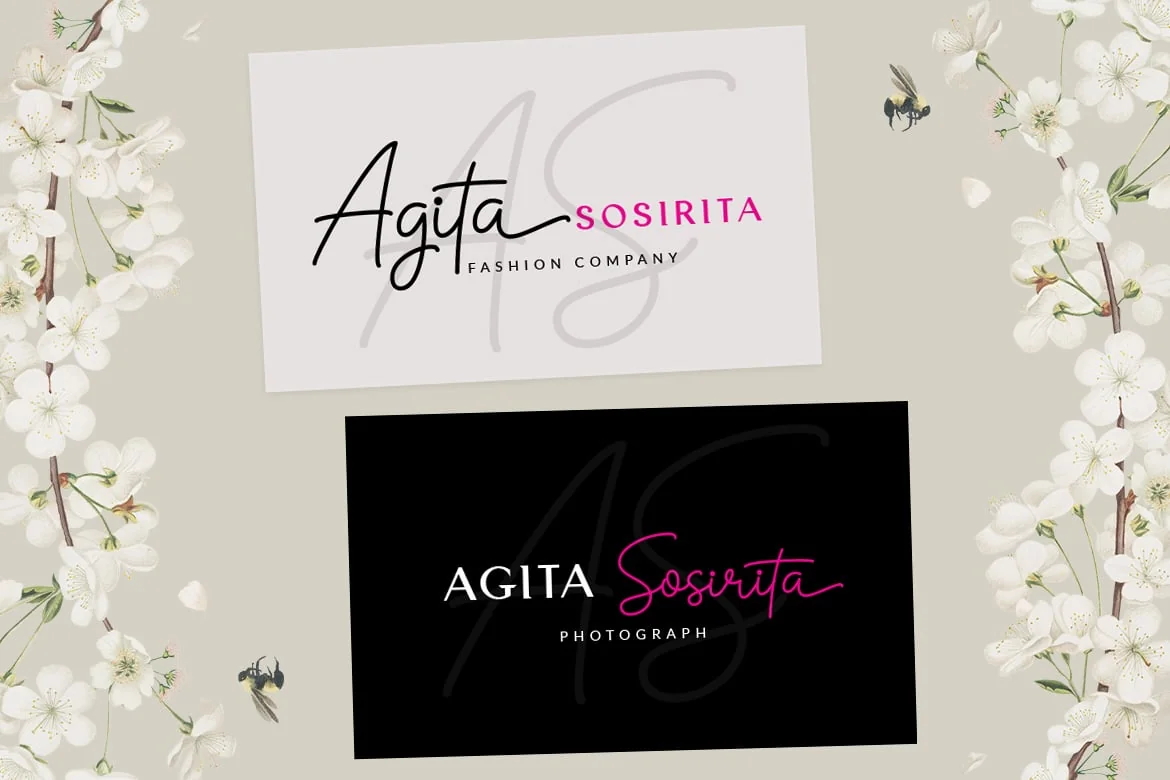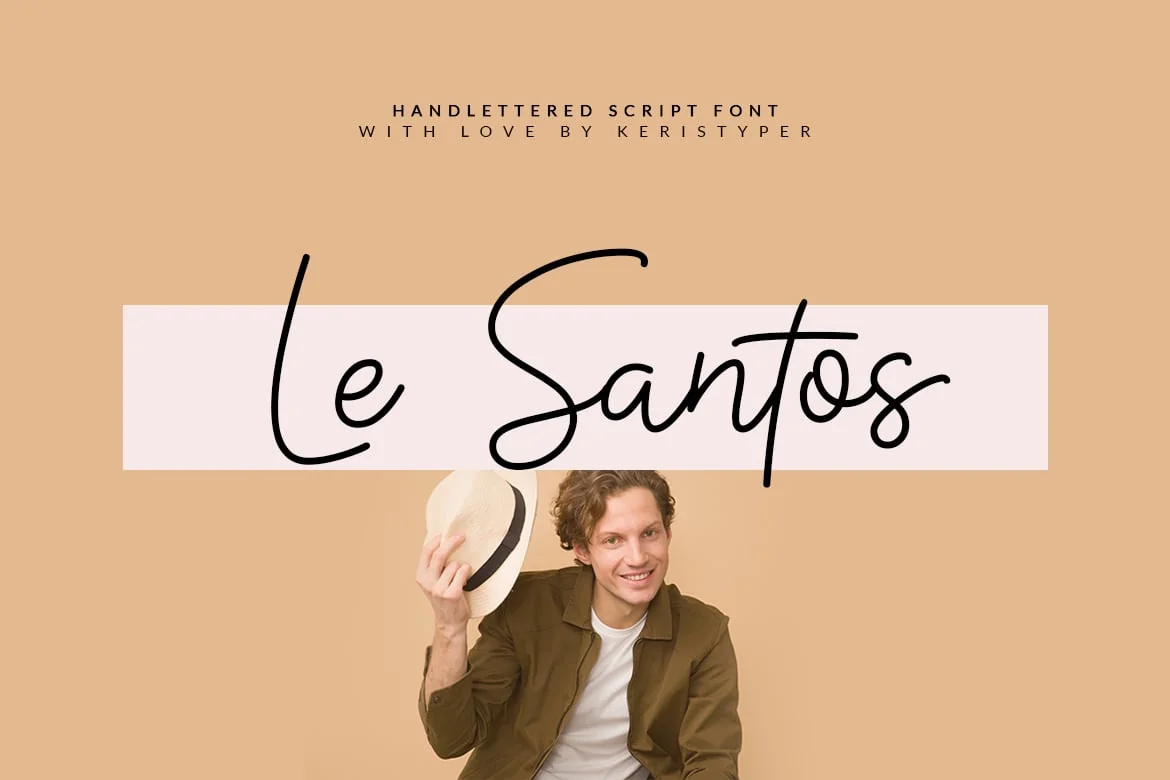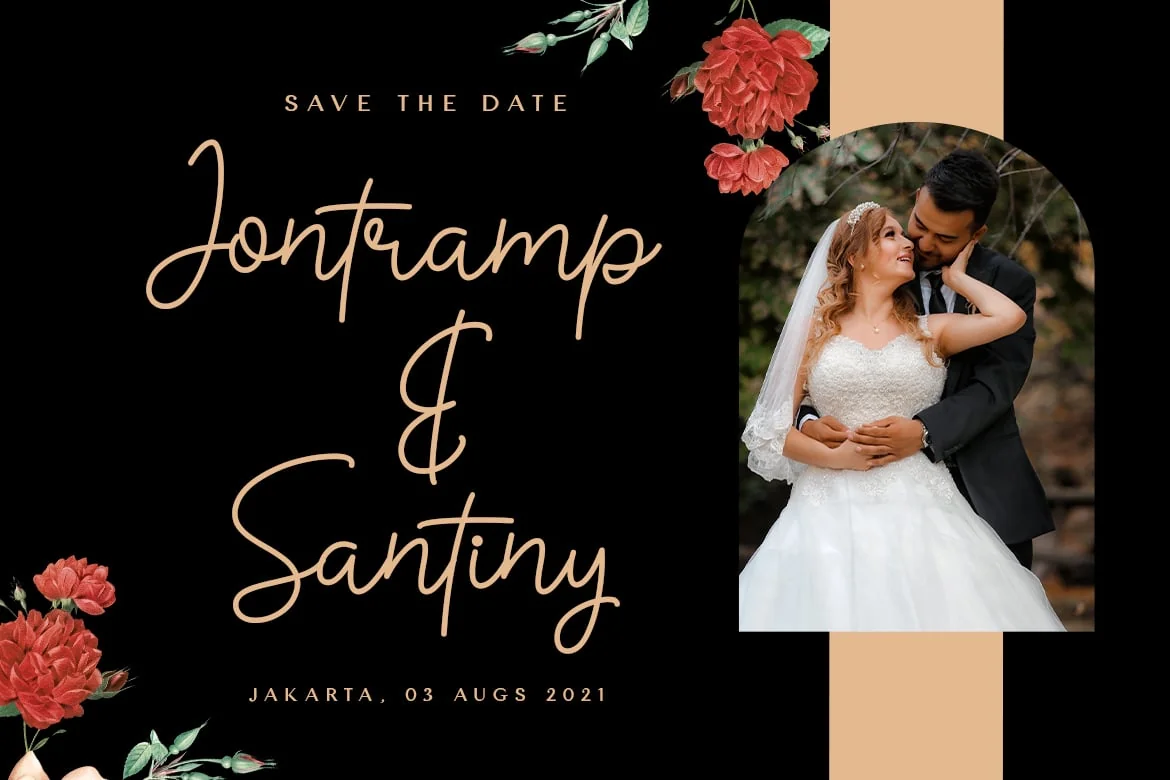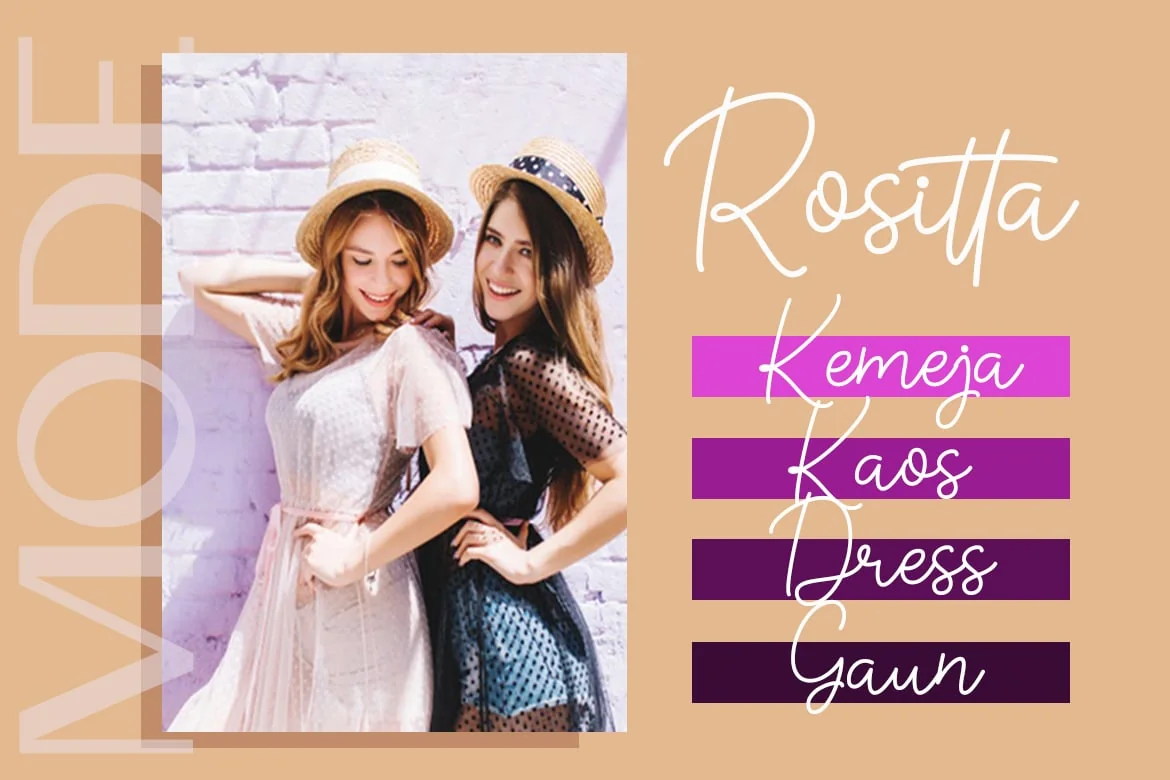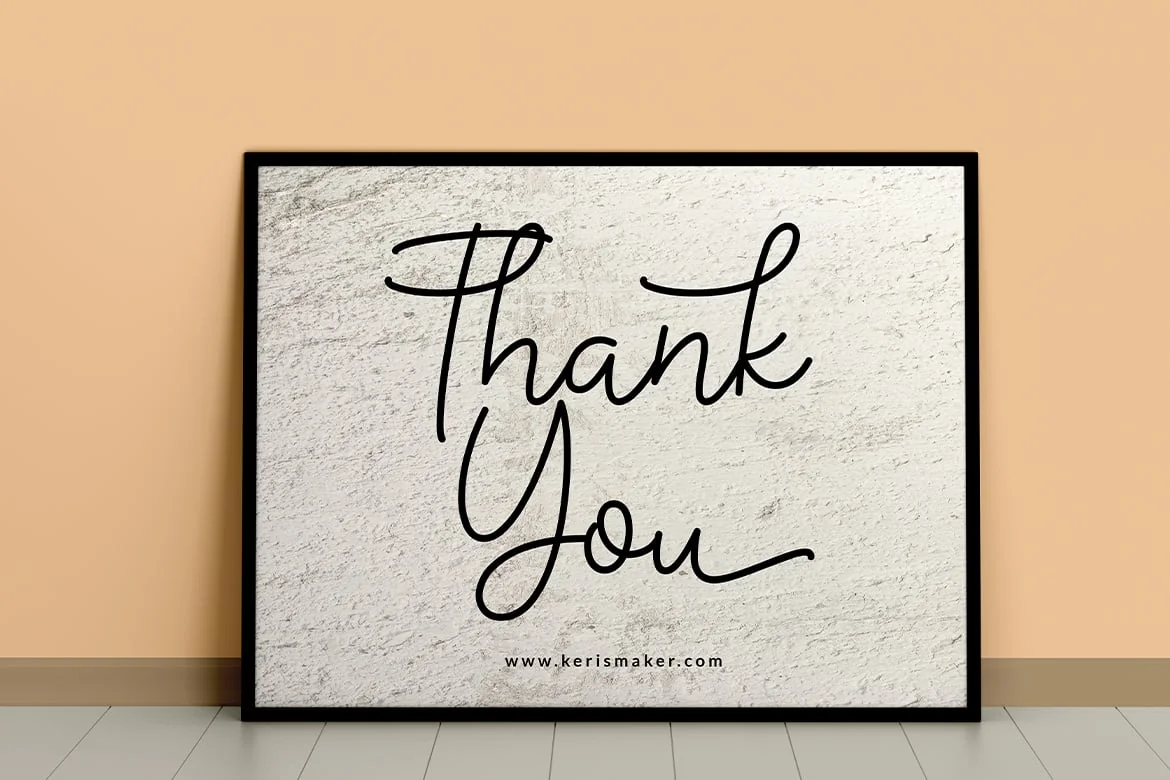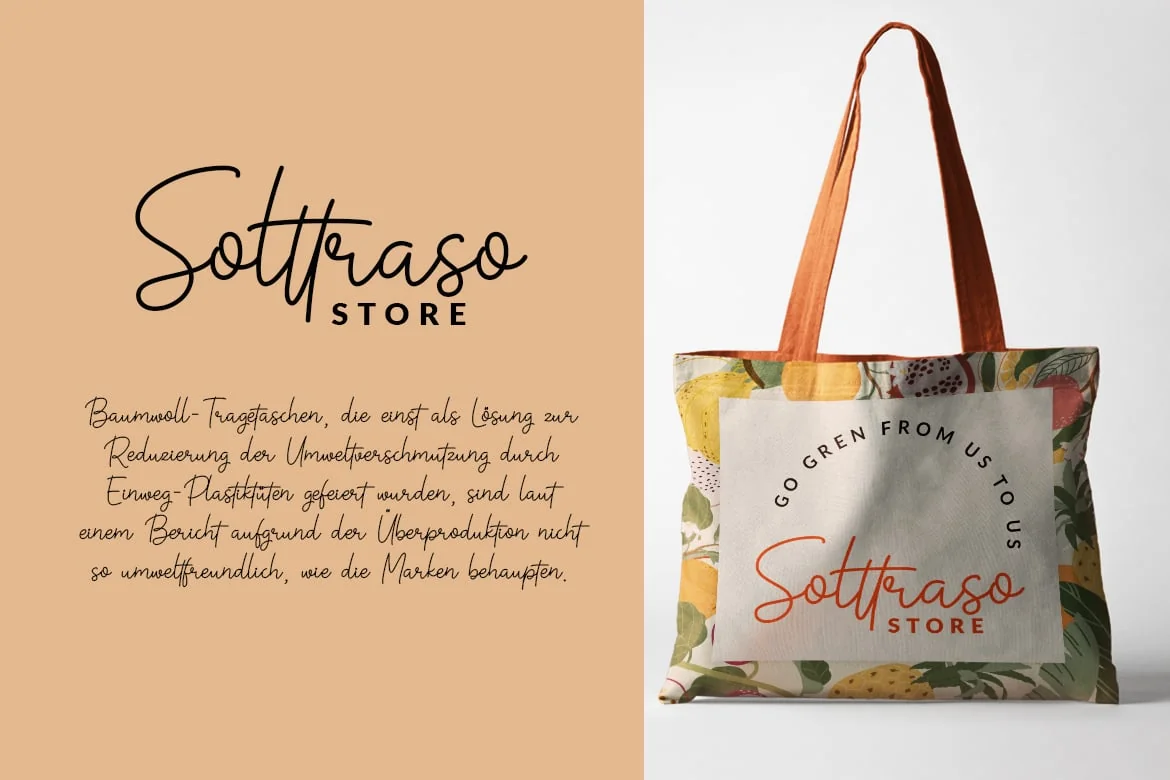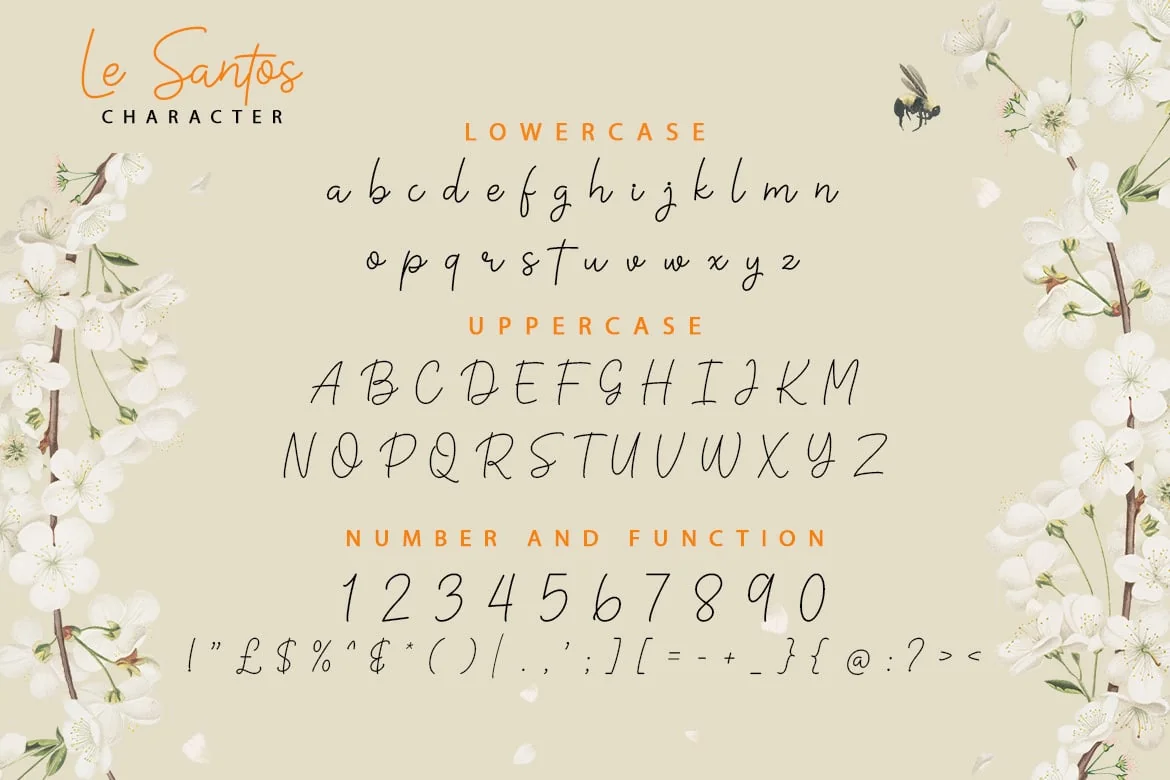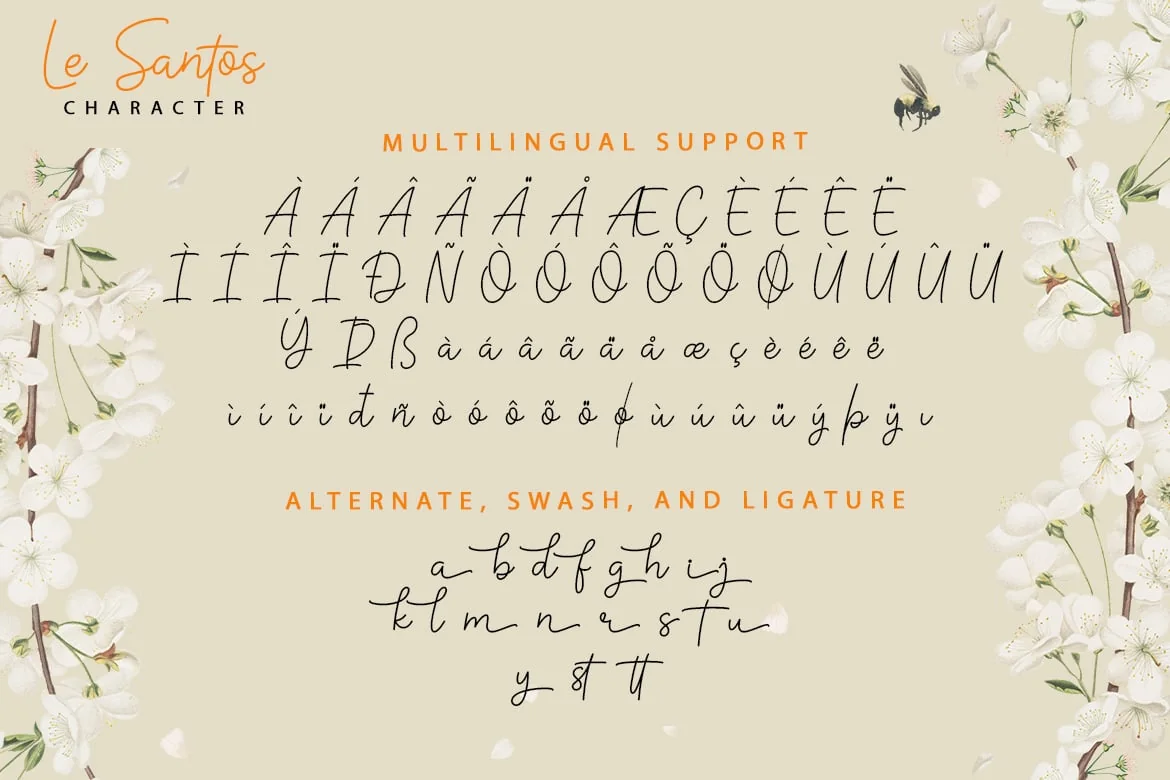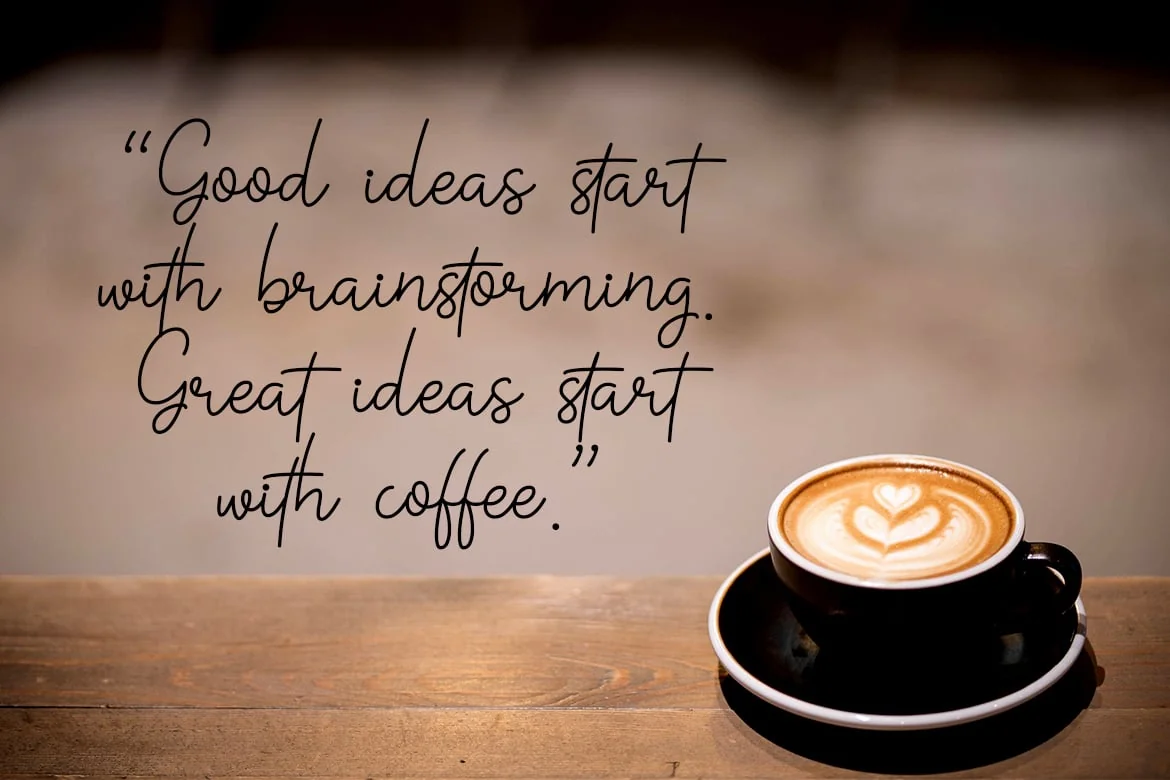
Le Santos Handwriting Font
Le Santos Handwriting Font, This font is created with a unique combination of each character. looks real and can be used for all your project needs. This font can be used anytime and in any project.
Le Santos Handwriting Font multilingual support:
Afrikaans, Albanian, Catalan, Danish, Dutch, English, Estonian, French, Finnish, German, Icelandic, Indonesian, Italian, Malay, Norwegian, Portuguese, Spanish, Swedish, Zulu, and many more.